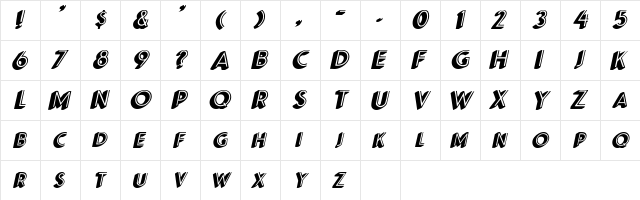
ApexShadowSCapsSSK BoldItalic Font Preview
Design Context for ApexShadowSCapsSSK Typeface
ApexShadowSCapsSSK brings ornamental detail and strong personality to headlines and identities, where visual impact matters more than quiet functionality. The slanted form adds forward momentum and visual energy. Its bold stroke weight gives it real presence on the page.
Font Pairing: Pair with a clean neutral sans-serif for body copy to let ApexShadowSCapsSSK's character lead without overwhelming the composition.
Pro Tip: Use ApexShadowSCapsSSK exclusively at display sizes — it was designed to be seen, not read at length. Let a neutral companion handle body copy.